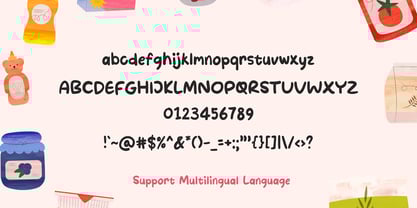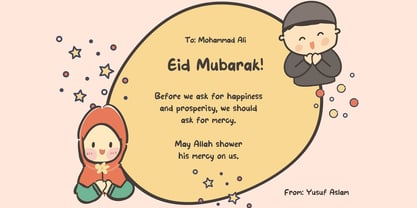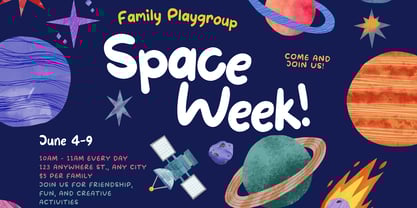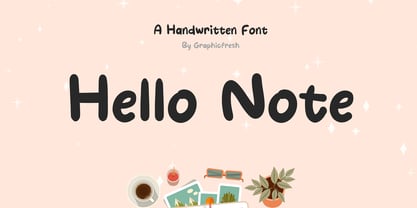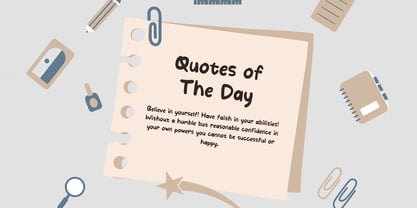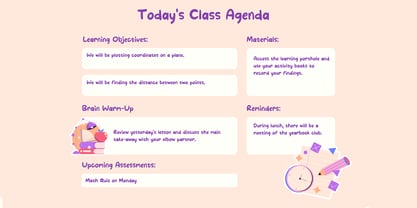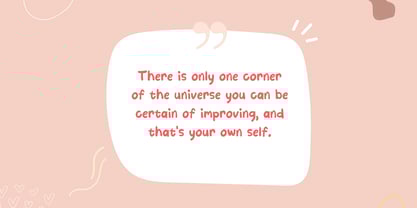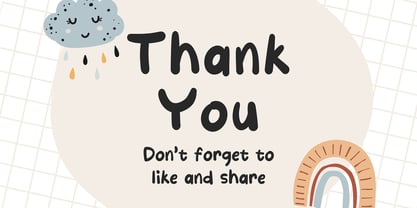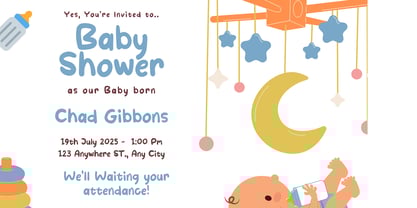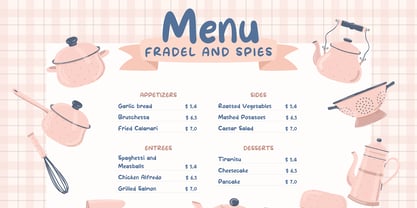
Hello Note
The Hello Note Font Family was designed by Muhammad Husni Haikal and published by Graphicfresh. Hello Note contains 1 styles. More about this family
Introducing “Hello Note,” a charming handwritten font designed to add a personal touch to your diaries and daily notes. With its graceful and flowing strokes, Hello Note exudes a warm and welcoming feel, making your writing feel more intimate and expressive. This font is perfect for adding a touch of elegance to your everyday musings and reflections, creating a uniquely personal and memorable journaling experience.